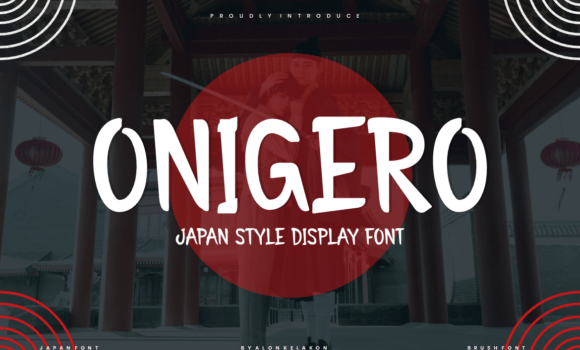
onigero
Onigero Font – Free Download Introduction to Onigero Font Onigero is a Japanese-style display font that features bold, clean lines and a playful, artistic look. 📸 Preview Gallery 5 images 📌 Product Name Onigero Font 👤 Author alonkelakon 📂 Category